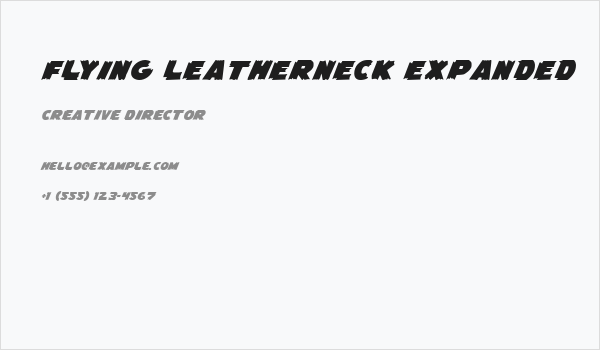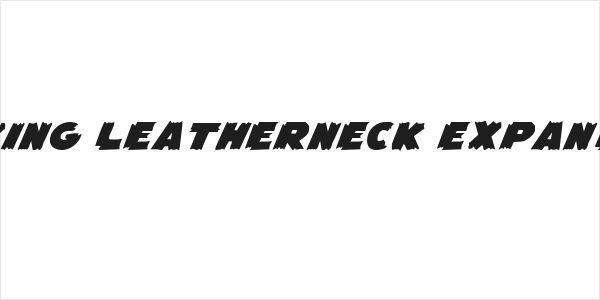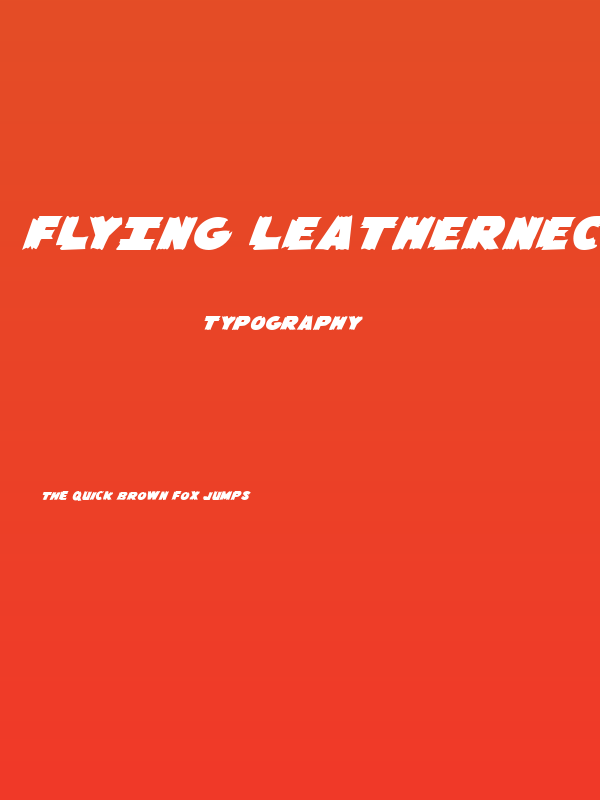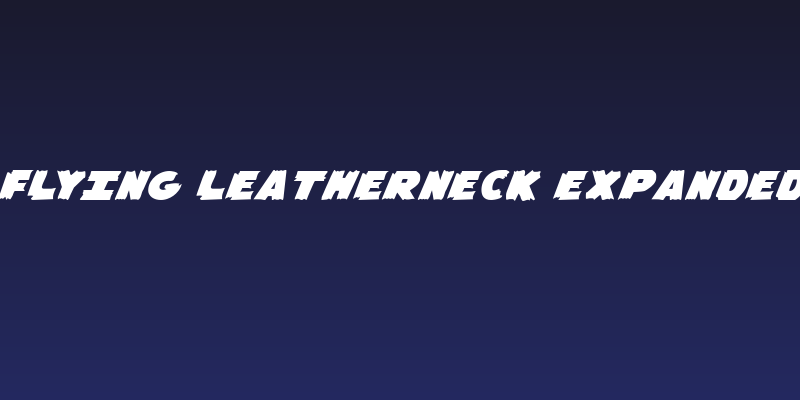
Flying Leatherneck Expanded Font
Flying Leatherneck Expanded Description
This font features a bold and dynamic style with a distinct, jagged edge that gives it a sense of movement and energy. The characters are designed with a strong, angular appearance, making them stand out with a powerful presence. The uppercase and lowercase letters maintain a consistent style, while the numerals and special characters complement the overall aesthetic. This font is ideal for projects that require a bold and impactful visual statement.
| Proposed Projects | Ideal for posters, logos, headlines, and any design needing a bold, energetic look. |